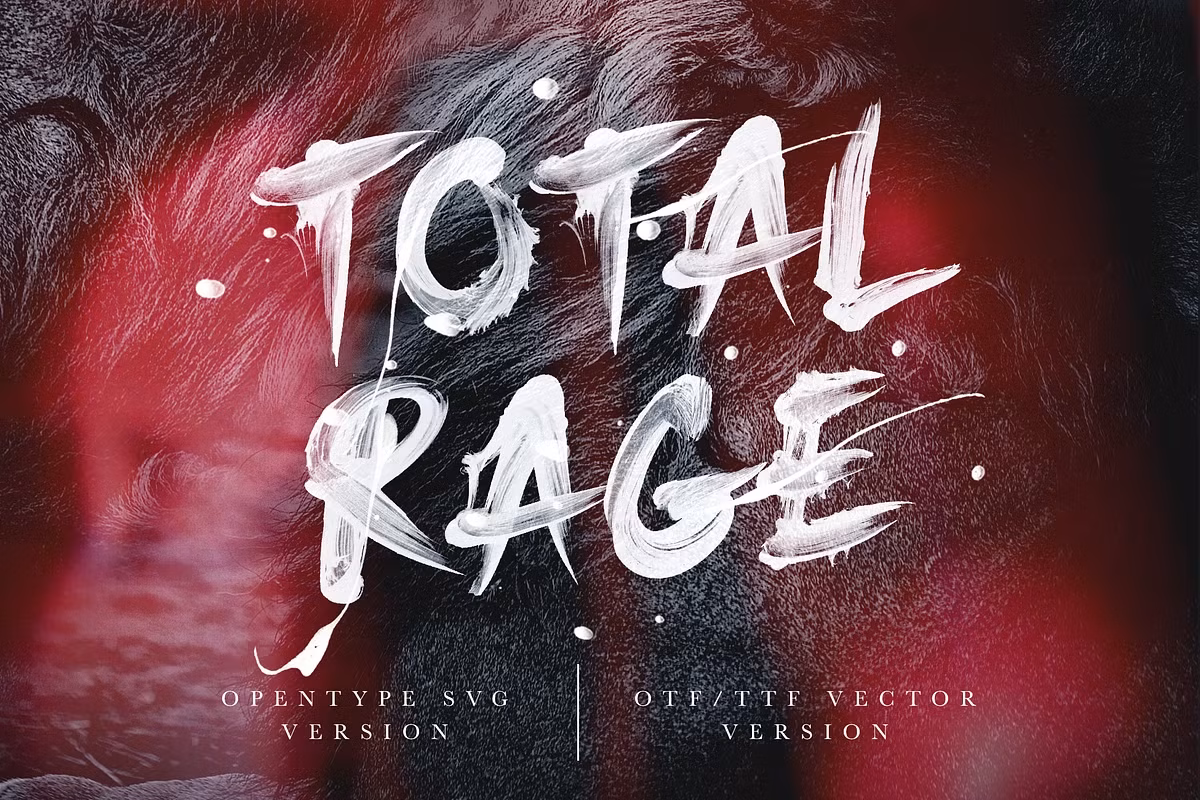
Total Rage - Brush SVG Font Free Download
Total Rage - Brush SVG Font Free Download is a raw, energetic typeface that captures the real texture of brush strokes with stunning detail. Designed using high-resolution lettering, this SVG font is perfect for music artwork, streetwear branding, posters, extreme sports graphics, and any design that demands bold, rebellious impact.
With its grunge aesthetic and dynamic flow, Total Rage delivers intensity and attitude like no other. The SVG format preserves the brush's texture and transparency, making each letter feel hand-painted and alive—ideal for standing out in high-impact creative work.